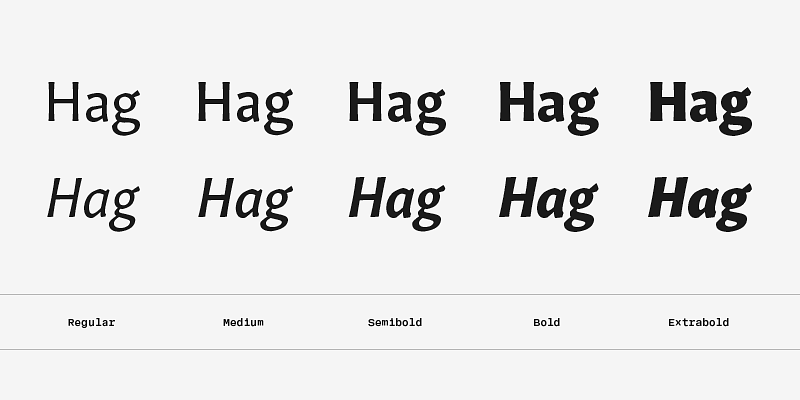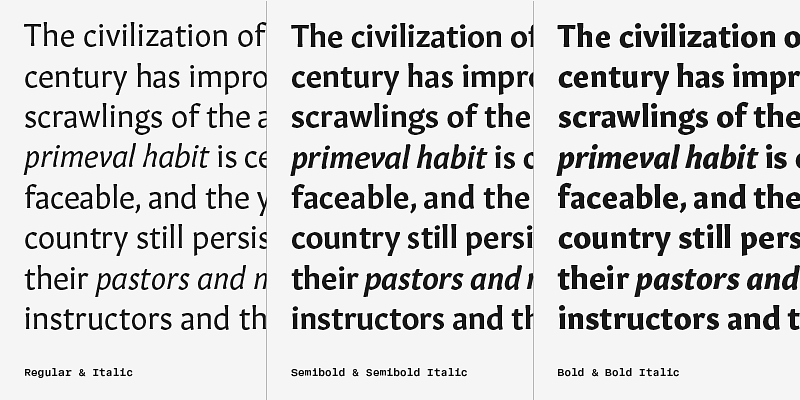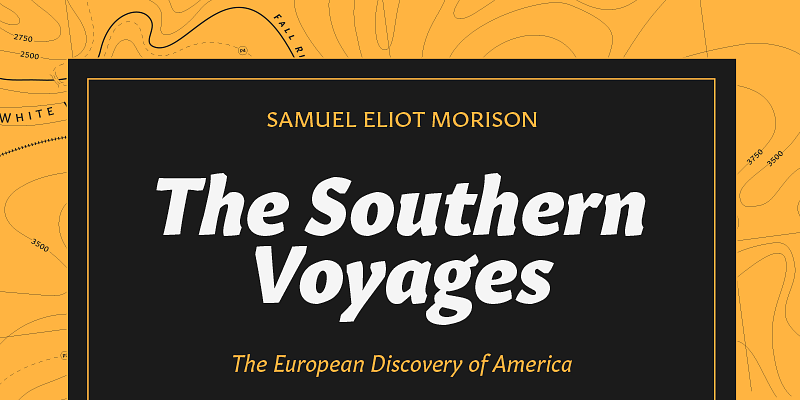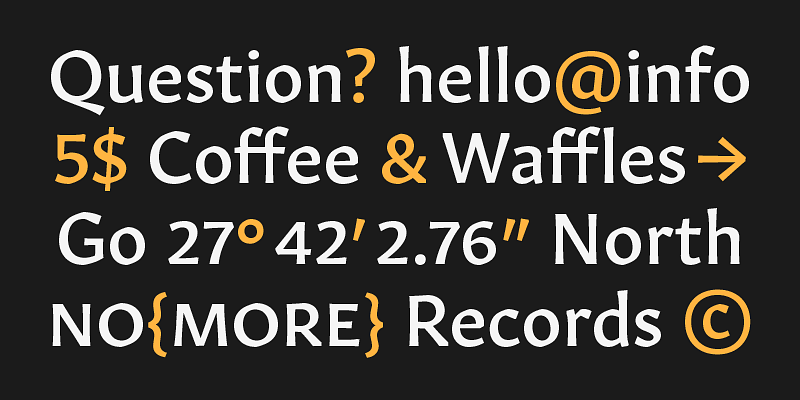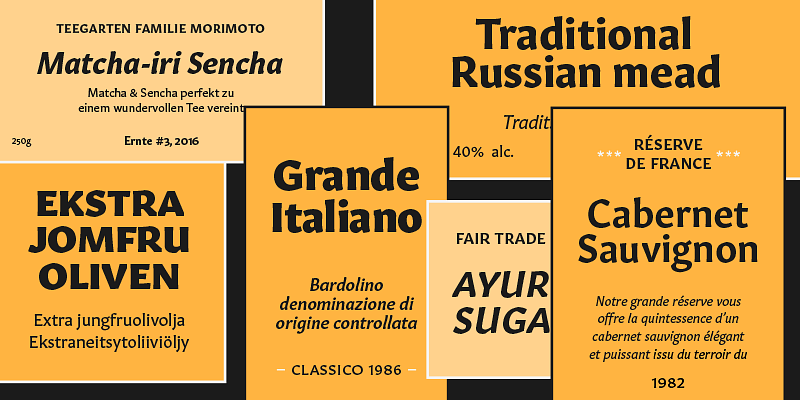
Gitan is a flared sans serif, reminiscent of engraving and stone carving. Sturdy and informal, the design features a moderate contrast that provides durability for text setting.